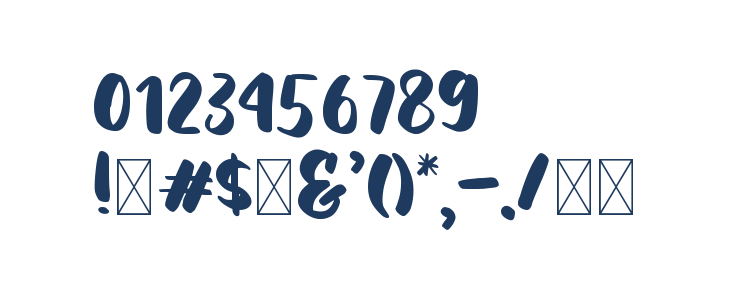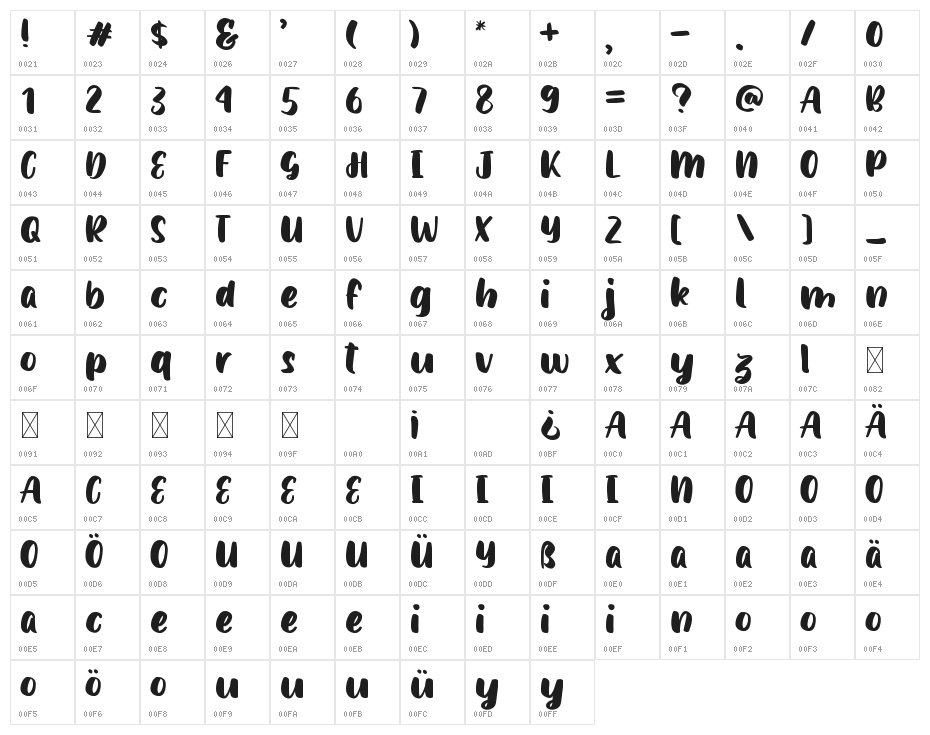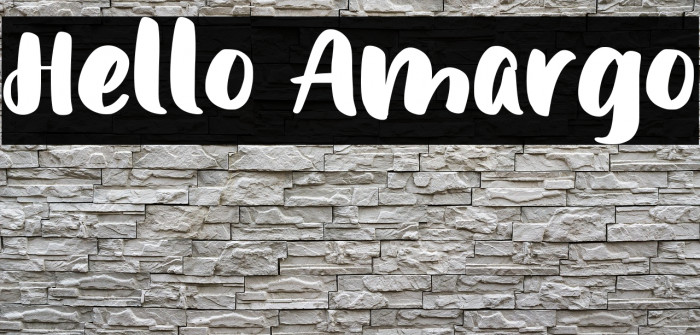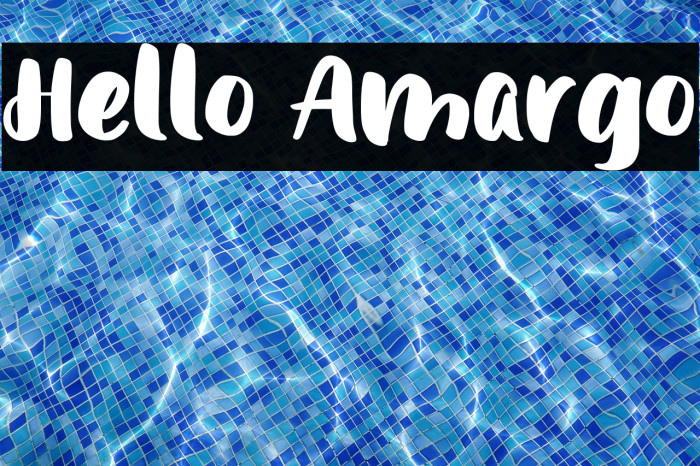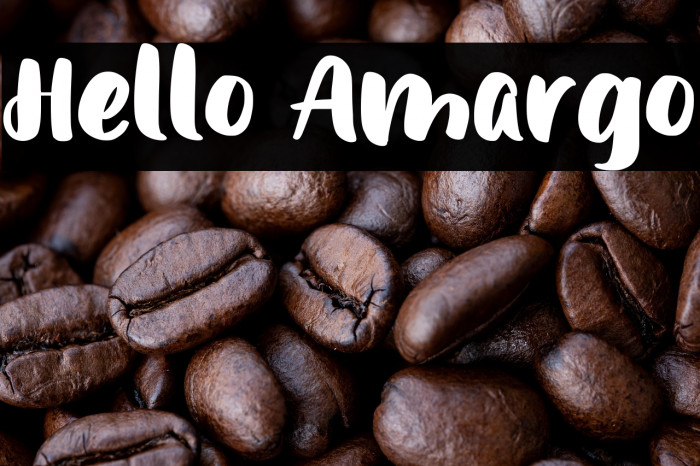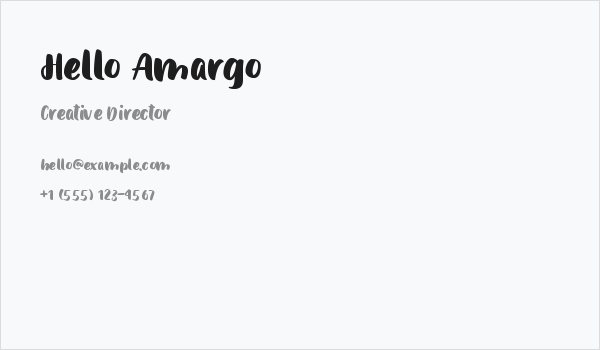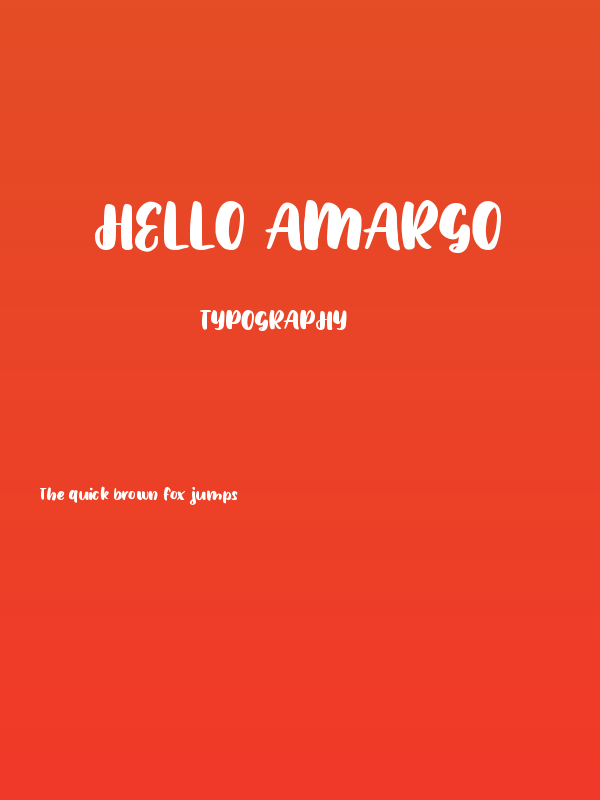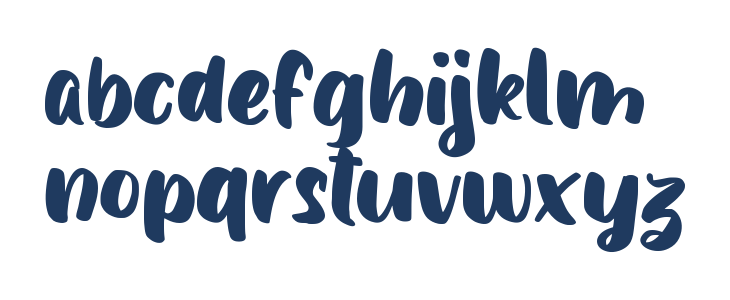
Hello Amargo Font
Hello Amargo Description
This font features a bold and playful script style with a handwritten feel. The characters are thick and rounded, giving a sense of warmth and friendliness. The uppercase letters are slightly larger than the lowercase, maintaining a consistent flow throughout the text. The numbers and special characters are designed to match the playful aesthetic, making them suitable for creative projects. The overall appearance is dynamic and energetic, with a touch of whimsy that makes it stand out in any design.
| Overall Style | Playful, Handwritten |
| Proposed Projects | Ideal for greeting cards, playful branding, children's books, and creative posters. |